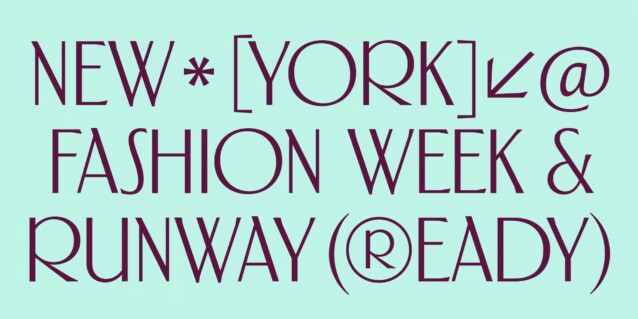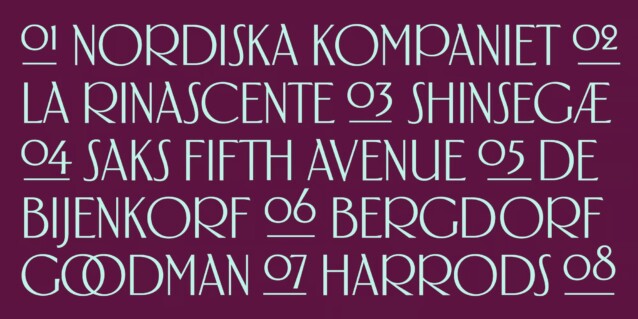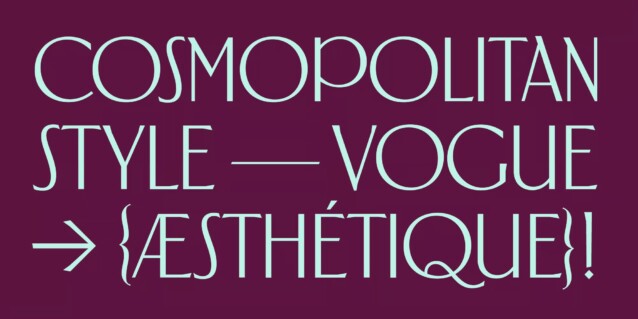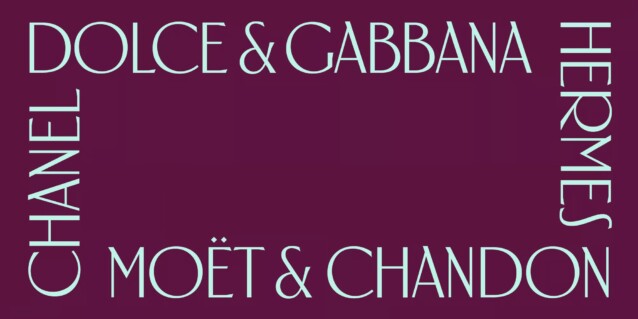
Suffragette Font
Suffragette Font is a condensed humanist sans display font manufactured by muccaTypo. It’s an all-caps typeface introduced for the branding of the Hermitage Hotel in Nashville, is inspired by the Hotel’s Beaux-Arts architecture injected with a healthy 2020’s aesthetic. This unique roman capital design, with its sans serif-medium contrast shapes and slightly pronounced serifs, is the perfect match for luxury packaging and high-end couture. If your brand wants to project elegance with a playful edge, Suffragette is the font for you!